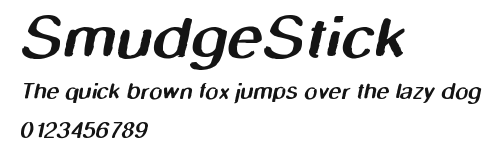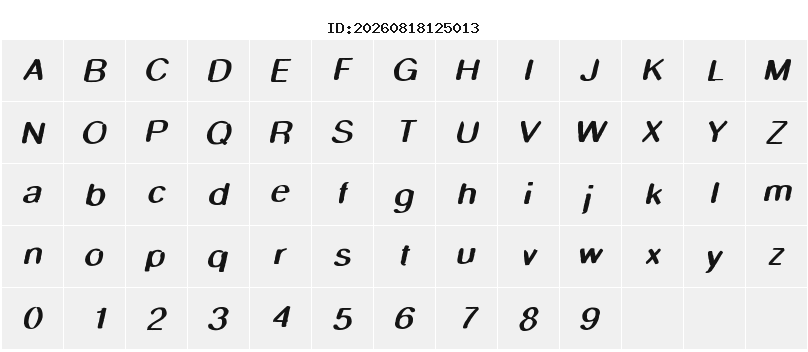
• Font Name: SmudgeStick
• Font Style: Oblique
• Font ID: FontForge : Smudge Stick Oblique : 2-8-2016
• Full Font Name: Smudge Stick Oblique
• PostScript Name: SmudgeStickOblique
• Character Count: 104
About SmudgeStick.ttf
SmudgeStick.ttf is a modern, elegant sans-serif font designed for ultimate readability and visual harmony. Perfect for branding, headlines, web design, and print materials.